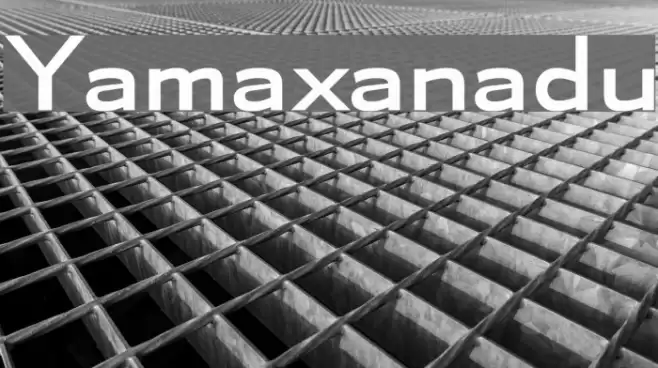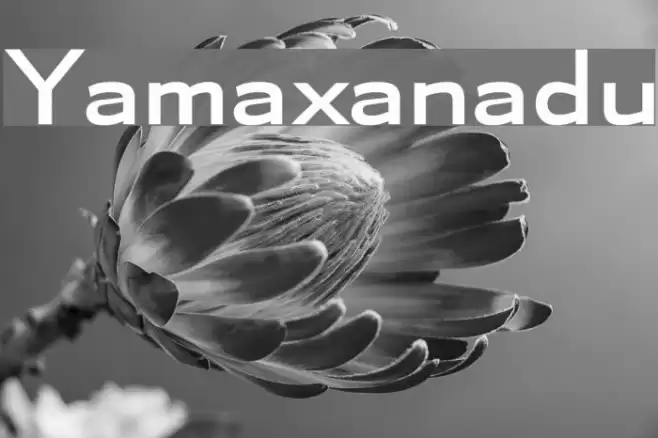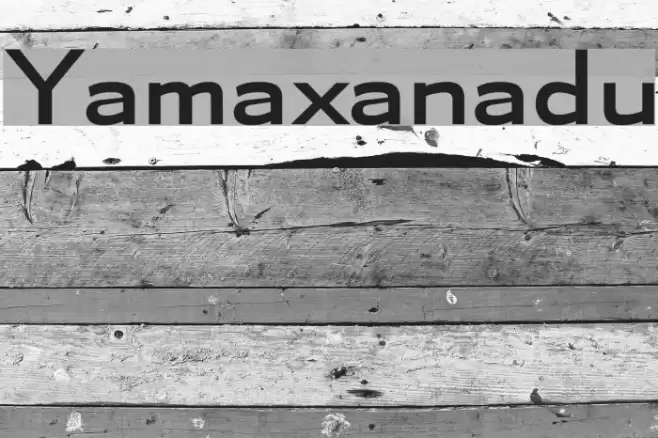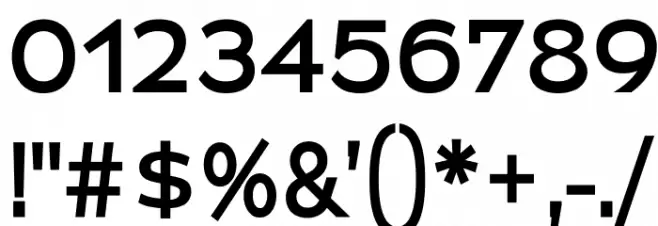
Yamaxanadu Font
Yamaxanadu Description
This font exhibits a clean and modern sans-serif style, characterized by its geometric shapes and uniform stroke widths. The uppercase letters are bold and assertive, while the lowercase letters maintain a consistent and harmonious appearance. The numerals are straightforward and align well with the overall design, making them highly legible. Special characters are crafted with precision, ensuring they complement the alphabetic characters seamlessly. The font's simplicity and clarity make it versatile for various design applications.
A modern, geometric sans-serif font with uniform strokes and high legibility from Uncategorized fonts.
- Proposed Projects: Ideal for branding, web design, advertising, and editorial layouts where clarity and modernity are essential.
- Use Case: Headlines, Logos, Web design